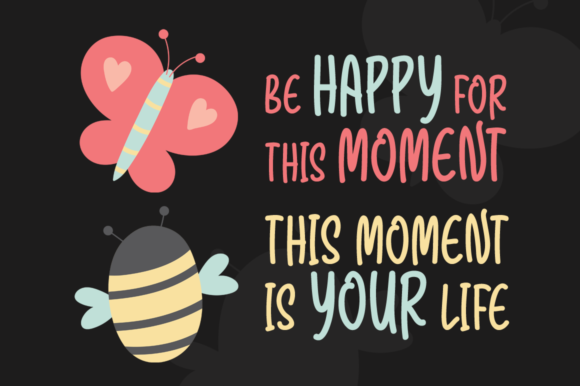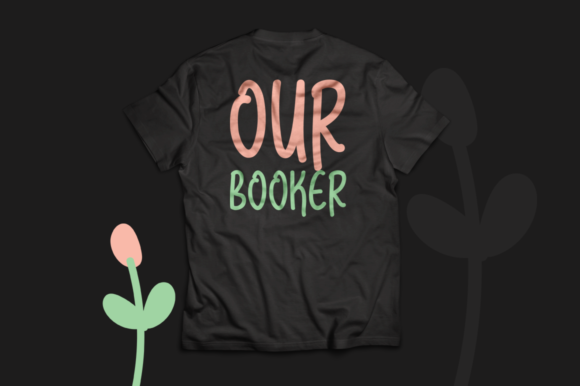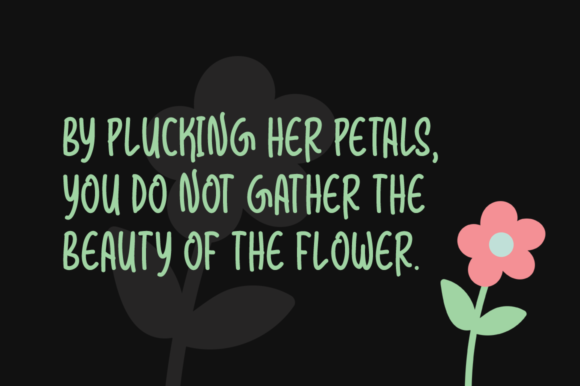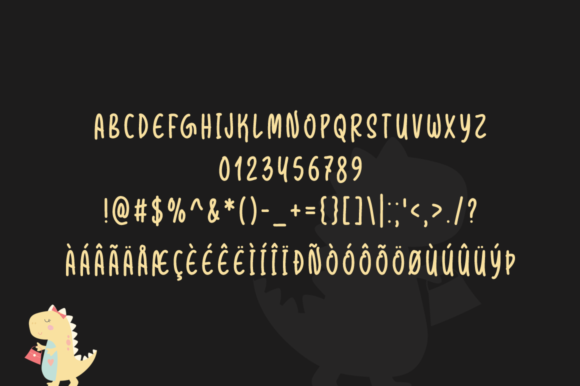
Introduction to Our Looker Font
The Our Looker is a brand new modern handwritten font.
It’s perfectly suited for stationery, logos, t-shirts, papers, print designs, website headers, photo frames, flyers, music covers, posters, image sliders and much more .